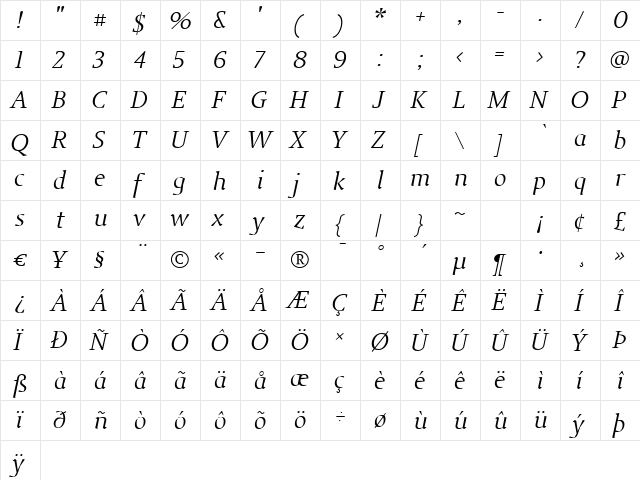
JudeLightLiningNumbersItalic Regular Font Preview
Design Context for JudeLightLiningNumbersItalic Typeface
JudeLightLiningNumbersItalic is a composed and adaptable typeface that performs quietly and consistently across a wide range of design contexts. The dynamic lean of this cut emphasises speed and emphasis in any layout. The delicate stroke weight brings airiness and refinement to layouts.